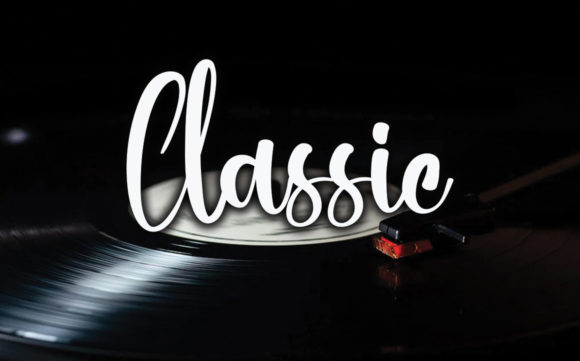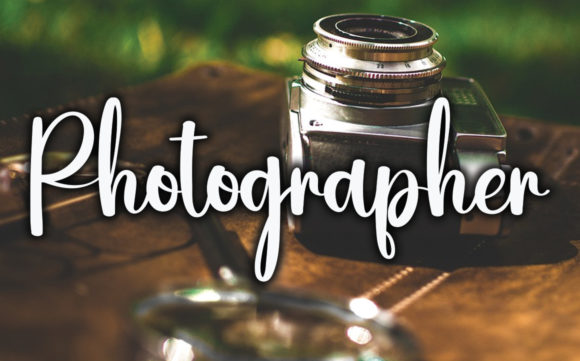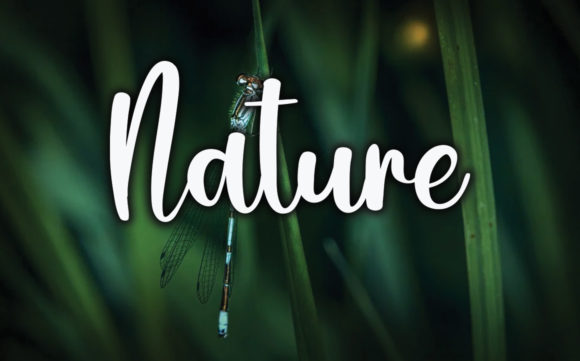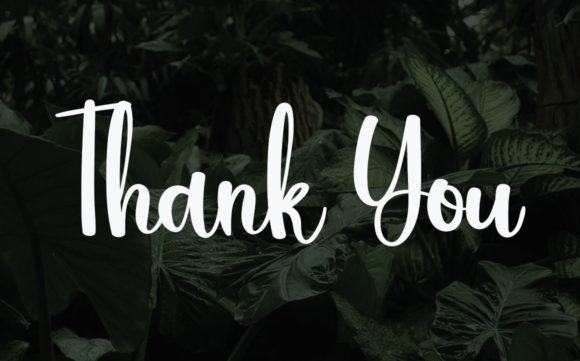
The Doodle Font: A Beautiful Handwritten Style for Creative Projects
I still remember the time I was working on a wedding invitation project, and my client asked for a font that was both elegant and playful. I scoured the internet, tried out countless fonts, but nothing seemed quite right. That was until I stumbled upon the Doodle font. Its beautiful, flowing handwritten style instantly captured the essence of the project, and I knew I had found the perfect fit. In this article, I’ll share my experience with the Doodle font, its features, and how to make the most of it in your creative projects.
A Personal Review of Doodle Font
- ✨ Beautiful and flowing handwritten style that’s perfect for making a statement
- ✅ Highly versatile and can be used for a wide range of projects, from wall displays to social media posts
- 💫 Impressive typography that adds a touch of elegance to any design
- 🎨 Great for creative hobbyists and professionals alike, with a wide range of design possibilities
While the Doodle font is an excellent choice for many projects, there are a few things to keep in mind:
- 🤔 May not be the best choice for body text, as it’s a display font and may be too ornate for long blocks of text
- ⚠️ Some characters may not work well at very small sizes, so it’s best to use it at larger sizes for optimal results
The Story Behind Doodle Font
The Doodle font was created by a talented type designer who wanted to create a font that was both beautiful and playful. Inspired by the art of handwriting, the designer crafted a font that was perfect for making a statement. With its flowing lines and elegant style, the Doodle font has become a popular choice among designers and creative hobbyists alike.
| Font Name | Doodle Font |
| Author | Garcio |
| What is the Doodle font best used for? | The Doodle font is best used for display purposes, such as wall displays, wedding invitations, social media posts, and product packaging. |
| Is the Doodle font suitable for body text? | No, the Doodle font is a display font and may not be the best choice for body text. It’s best used for headlines and titles. |